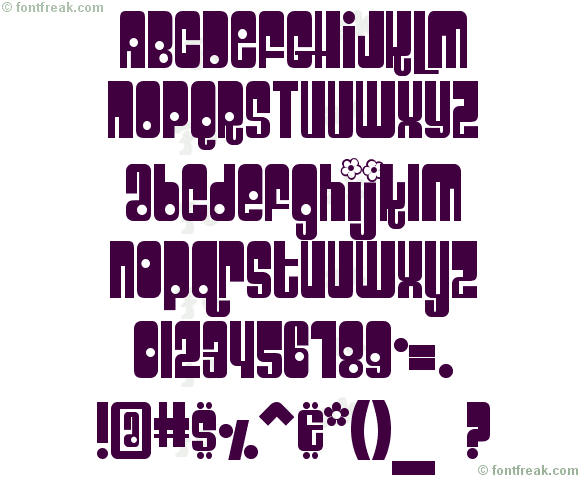
Velcro
About Velcro
The Velcro font by Font-a-licious Fonts is a striking display typeface that combines modern aesthetics with a playful vibe. As a decorative font, it features bold, rounded letterforms that exude a sense of fun and approachability. The stroke weight is consistent, giving the letters a uniform appearance that enhances readability while maintaining a distinctive character. The spacing between letters is well-balanced, ensuring that text set in Velcro remains legible even at larger sizes. This font is particularly notable for its unique circular elements within some letters, adding a whimsical touch that sets it apart from traditional typefaces.
Ideal for a variety of creative applications, the Velcro font shines in contexts such as children’s book covers, playful branding, and promotional materials for family-oriented events. Its cheerful demeanor makes it perfect for birthday party invitations, where a light-hearted tone is essential. Additionally, it works well for restaurant menus that aim to convey a casual atmosphere, and it can also enhance the visual appeal of social media graphics aimed at younger audiences. Graphic designers and small business owners looking to inject a sense of fun into their projects will find this font particularly appealing.